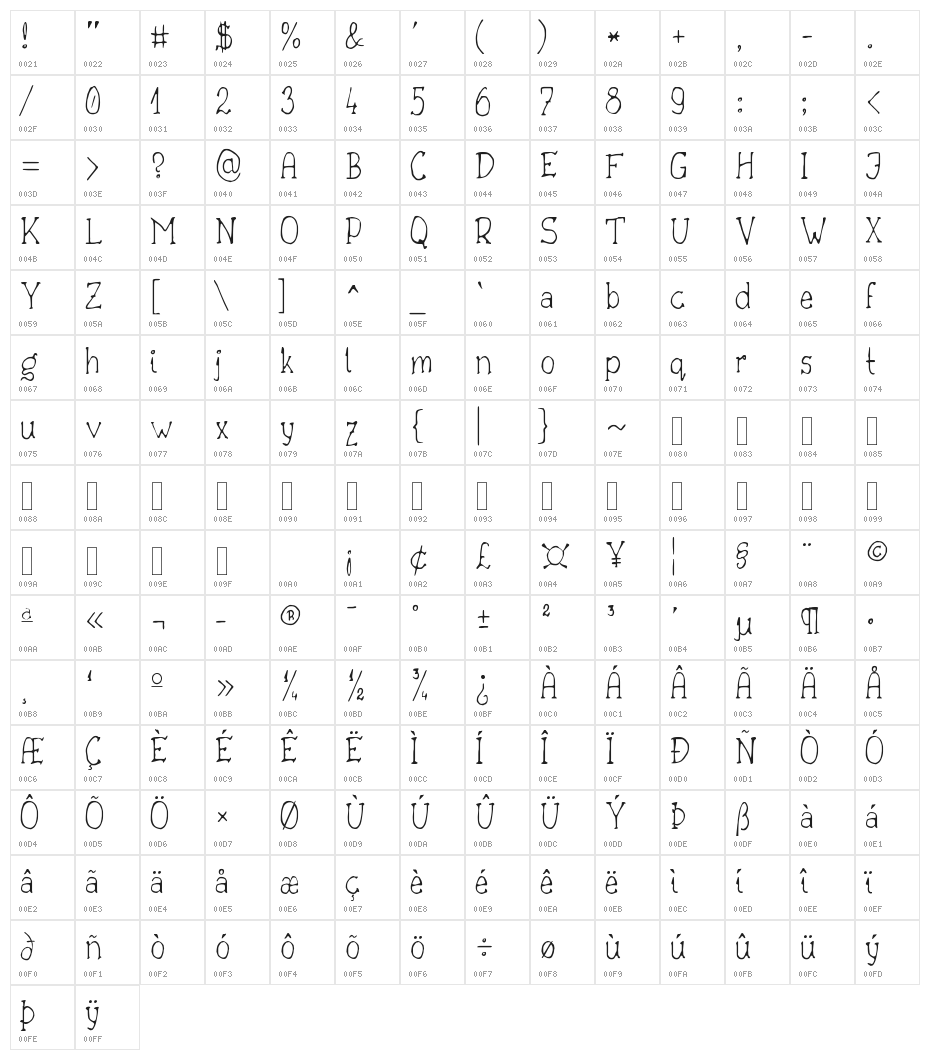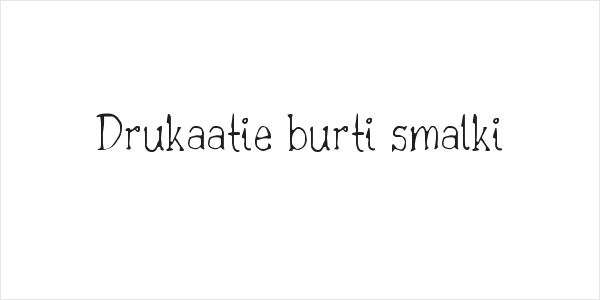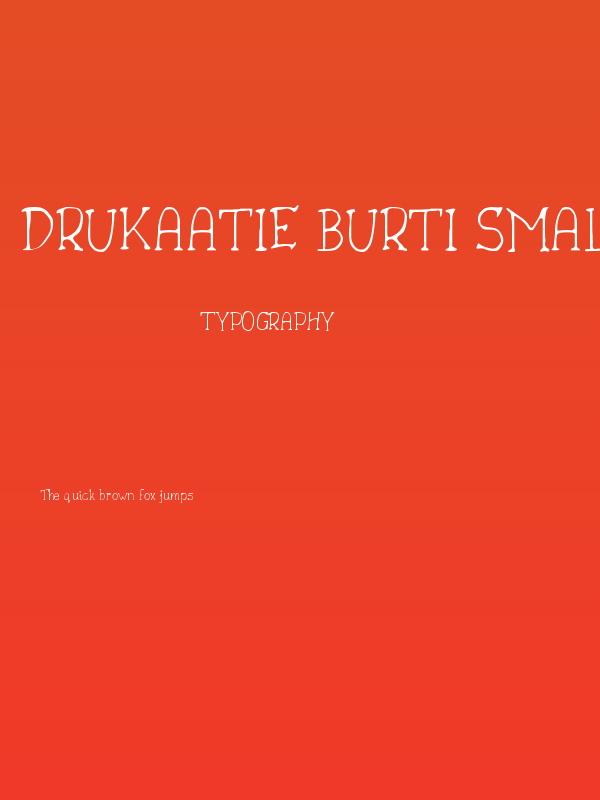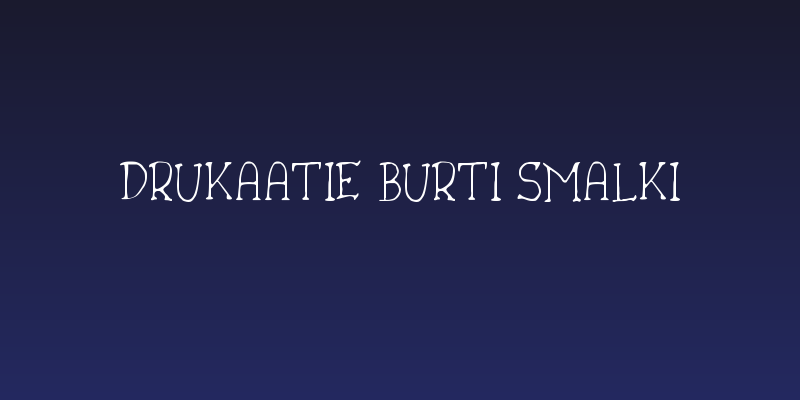
Drukaatie burti smalki Font
Drukaatie burti smalki Description
This font features a whimsical and playful style, characterized by its uneven and slightly irregular strokes. The letters have a hand-drawn appearance, with a unique charm that adds a personal touch to any design. The uppercase letters are tall and narrow, while the lowercase letters maintain a consistent height, creating a harmonious balance. The numbers and special characters follow the same quirky style, making them stand out with their distinctive shapes. This font is perfect for projects that require a fun and informal look, such as children's books, greeting cards, or creative branding.
| Proposed Projects | Ideal for children's books, greeting cards, and creative branding. |